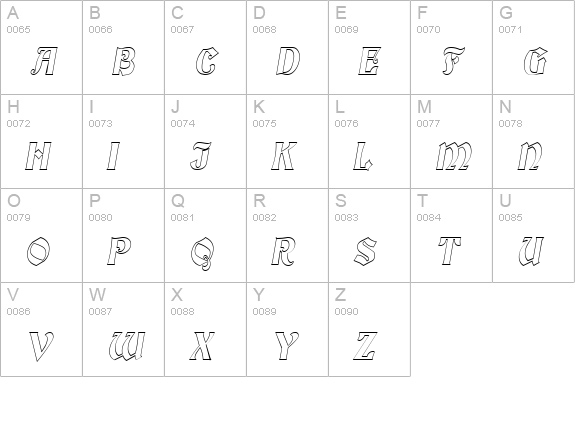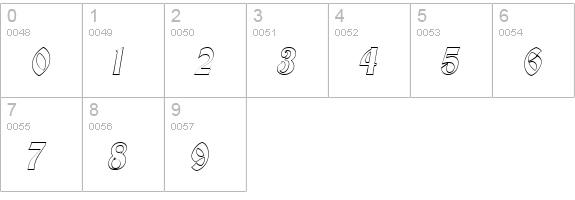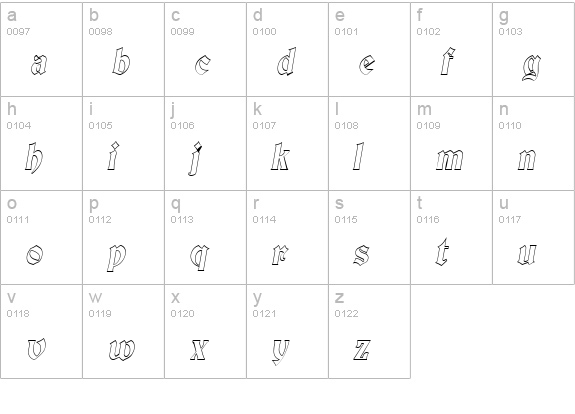
Brandywine-Hollow-Condensed Italic is a distinctive, condensed-width, italic variant in the Brandywine typeface family \xE2\x80\x94 well suited to design and typography projects.
Brandywine-Hollow-Condensed Italic font exudes elegance and sophistication with its sleek and slender design. The italicized style adds a touch of flair and modernity to any text, making it perfect for projects that require a contemporary aesthetic. The condensed nature of the font allows for efficient use of space without compromising on readability. Best of all, Brandywine-Hollow-Condensed Italic font is available for free download at FontsMarket.com. Whether you're working on a professional design project or simply looking to elevate your personal creations, this font is a versatile and stylish choice that will surely impress. Elevate your typography game with Brandywine-Hollow-Condensed Italic font today!